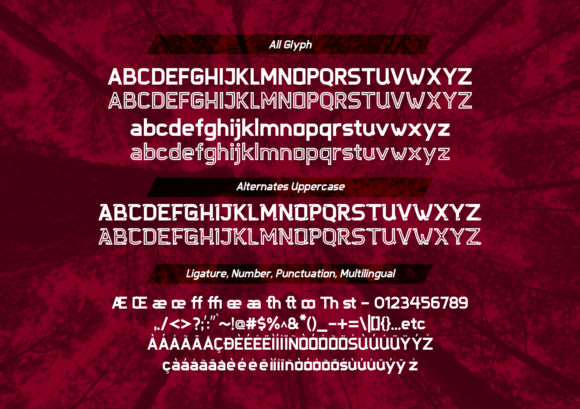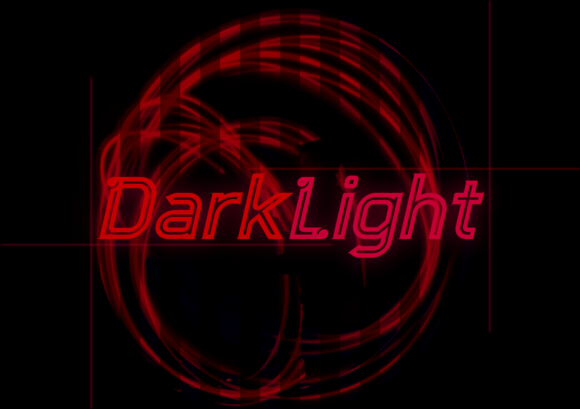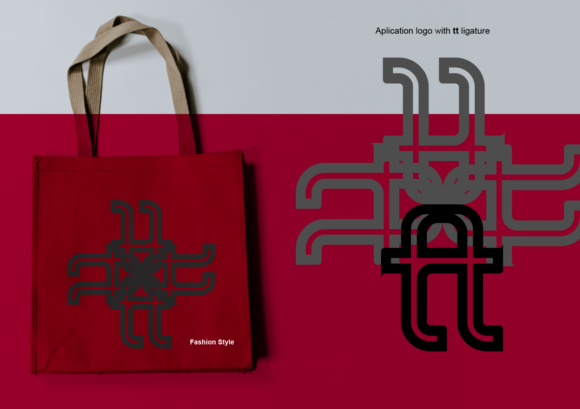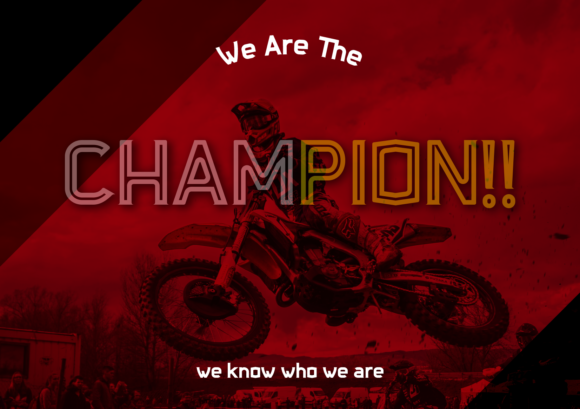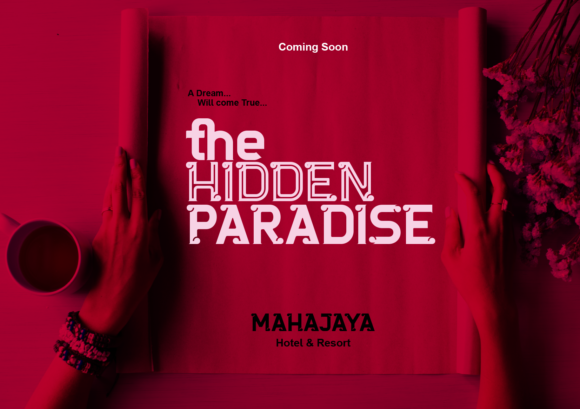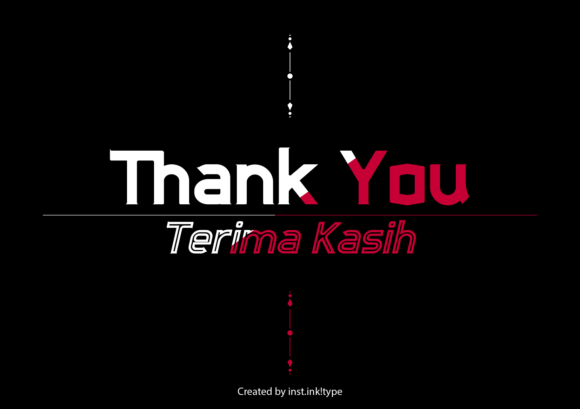
Introducing Djavaloca Font: The Ultimate Bold Sans Serif for Designers and Crafters
In the world of typography, fonts play a crucial role in conveying messages, expressing emotions, and creating visual identities. For designers and crafters, finding the perfect font can be a daunting task, especially when it comes to creating bold and eye-catching designs. This is where Djavaloca Font comes in – a bold sans serif font that is taking the design world by storm.
What is Djavaloca Font?
Djavaloca Font is a masterfully designed bold sans serif font that features chunky characters, making it perfect for a wide range of design applications. Its unique and modern aesthetic is sure to grab attention and leave a lasting impression. Whether you’re a designer, crafter, or simply a DIY enthusiast, Djavaloca Font is a must-have in your typography arsenal.
Key Features of Djavaloca Font
- Bold and Chunky Characters: Djavaloca Font boasts bold and chunky characters that are sure to make a statement in any design.
- Sans Serif Design: The font’s sans serif design makes it clean, modern, and highly legible, even at smaller sizes.
- Versatile: Djavaloca Font is incredibly versatile and can be used in a wide range of design applications, from logos and branding to packaging design and more.
- Easily Readable: Despite its bold nature, Djavaloca Font is easily readable, making it perfect for use in body text, headings, and titles.
Use Cases for Djavaloca Font
Djavaloca Font is an incredibly versatile font that can be used in a wide range of design applications. Here are some of the most popular use cases:
- Logo Design: Djavaloca Font is perfect for creating bold and eye-catching logos that make a statement.
- Branding: Use Djavaloca Font to create a consistent brand identity that exudes confidence and modernity.
- Packaging Design: Djavaloca Font is ideal for packaging design, adding a touch of personality and flair to product labels and packaging.
- Advertising: Use Djavaloca Font to create bold and attention-grabbing ads that demand attention.
- Signage: Djavaloca Font is perfect for creating eye-catching signs and displays that are sure to grab attention.
Why Choose Djavaloca Font?
With so many fonts available, why choose Djavaloca Font? Here are just a few reasons why Djavaloca Font stands out from the crowd:
- Unique Design: Djavaloca Font features a unique and modern design that is sure to make your designs stand out.
- Highly Legible: Despite its bold nature, Djavaloca Font is highly legible, making it perfect for use in a wide range of design applications.
- Versatile: Djavaloca Font is incredibly versatile and can be used in a wide range of design applications.
- Easy to Use: Djavaloca Font is easy to use and can be easily integrated into your design workflow.
In conclusion, Djavaloca Font is a bold sans serif font that is a must-have for designers and crafters. Its unique and modern aesthetic, combined with its versatility and legibility, make it perfect for a wide range of design applications. Whether you’re creating logos, branding, packaging design, or simply looking for a font to add a touch of personality to your designs, Djavaloca Font is the perfect choice.